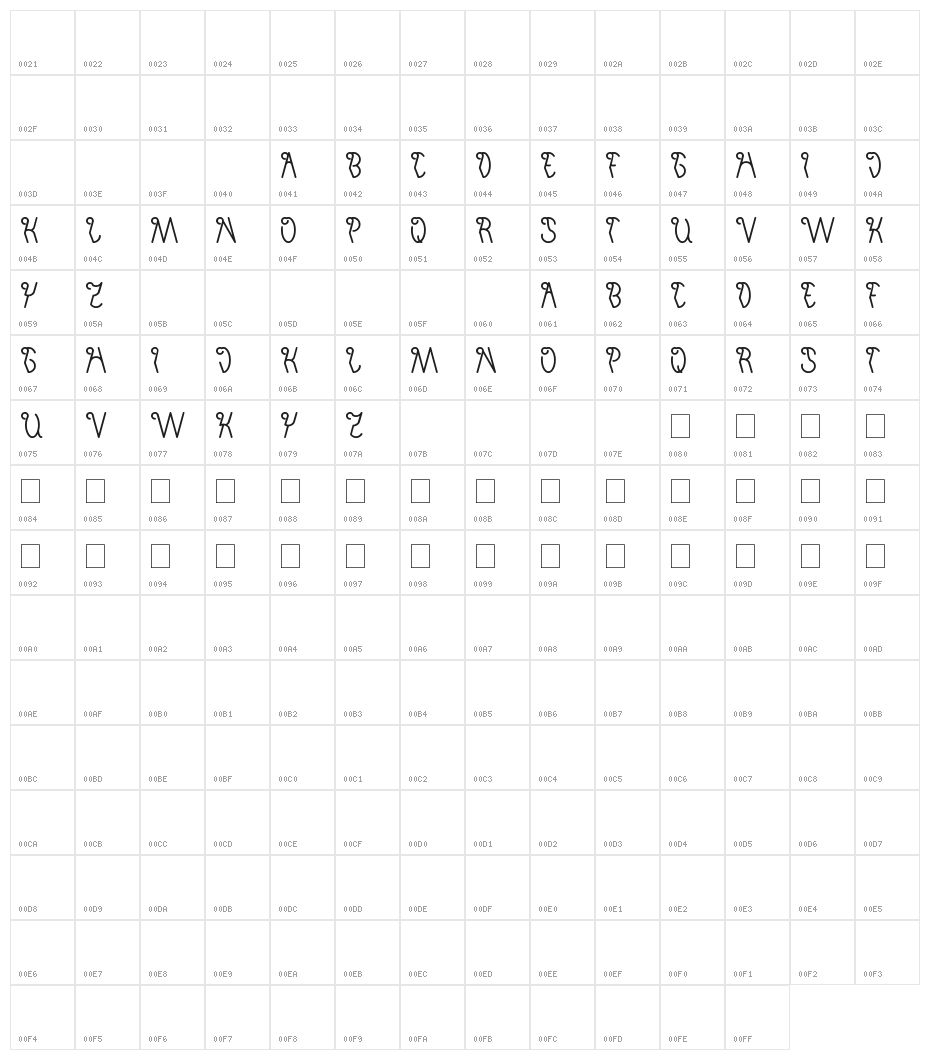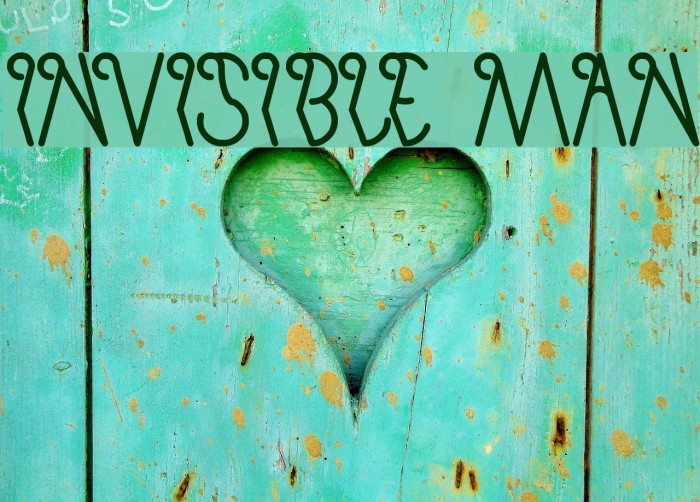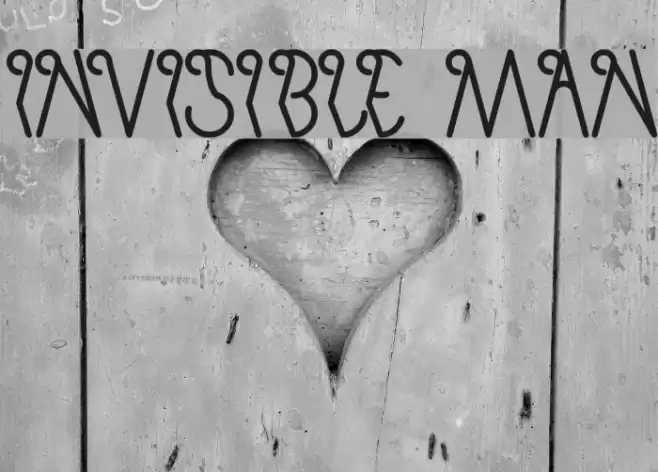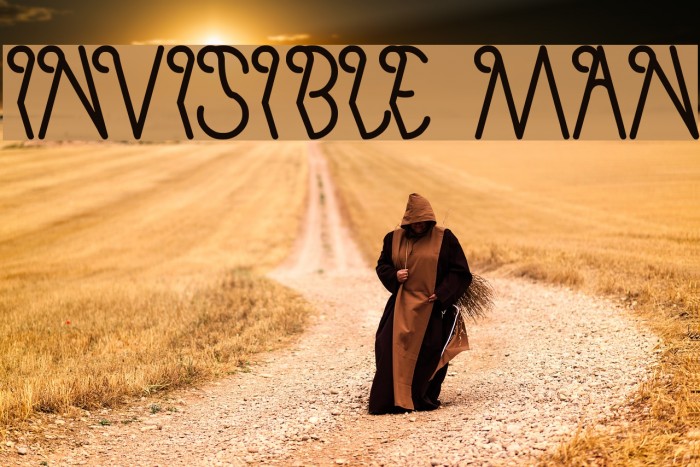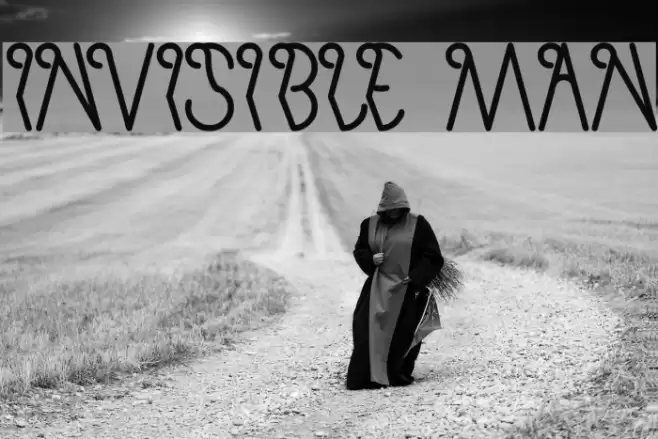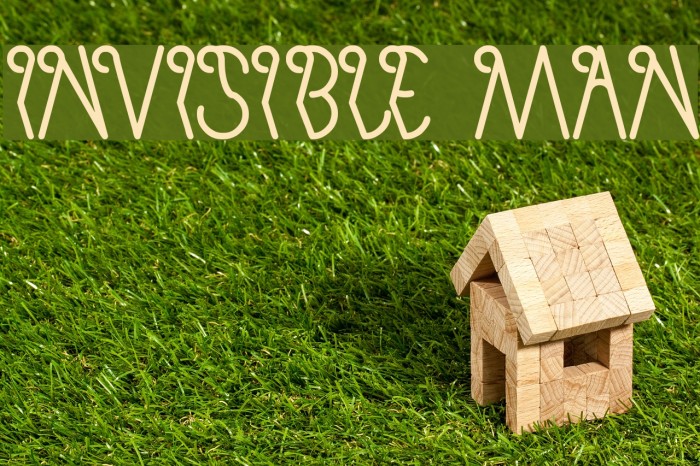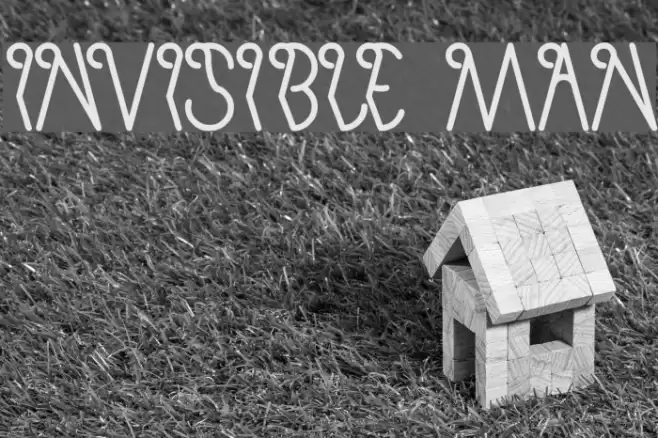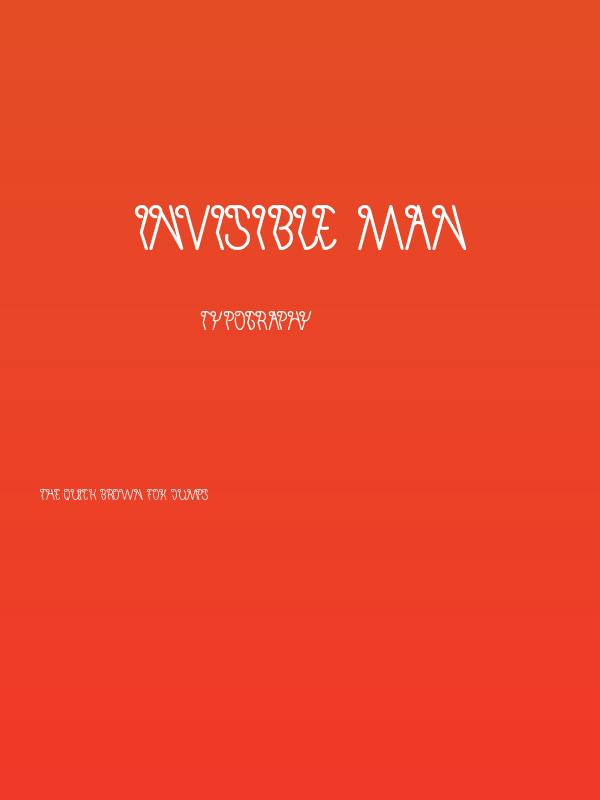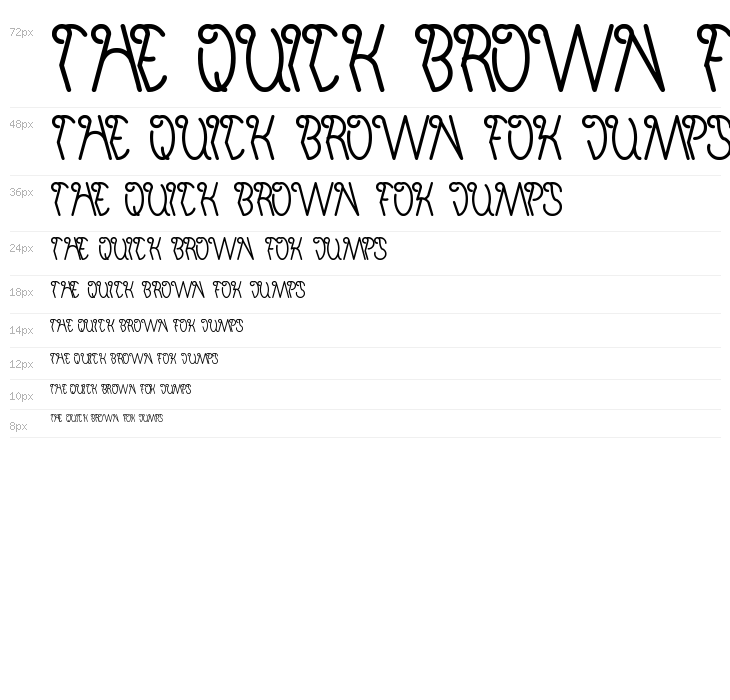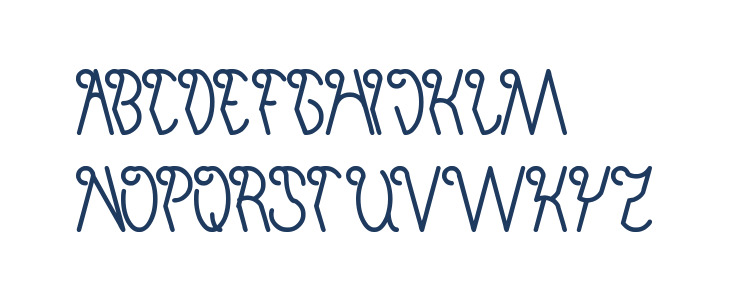
invisible man Font
invisible man Description
This font features a unique and artistic design with a playful twist. Each character is crafted with a combination of curves and straight lines, creating a whimsical and decorative appearance. The letters have an elongated form with distinctive loops and swirls, giving them a hand-drawn, almost calligraphic feel. The overall style is both modern and vintage, making it versatile for various creative projects. The font's intricate details and flowing lines make it stand out, perfect for adding a touch of elegance and creativity to any design.
Use CaseLogos, Headlines, Artistic projects
Proposed ProjectsIdeal for greeting cards, invitations, artistic posters, and branding materials that require a creative touch.